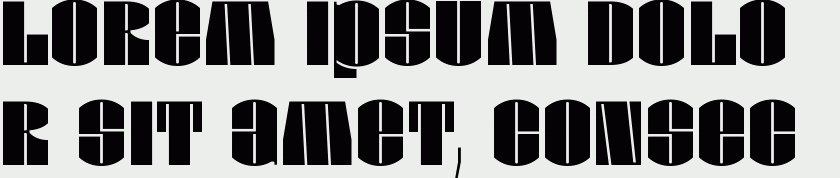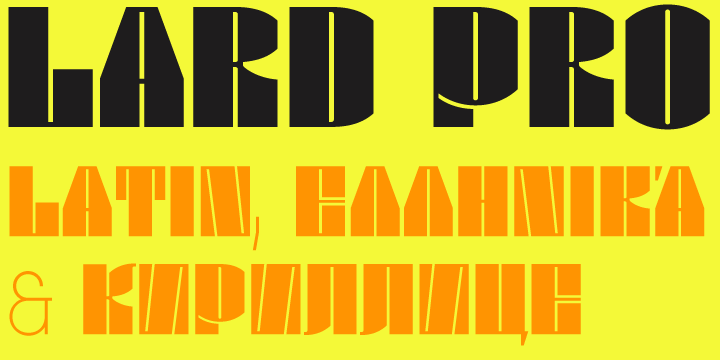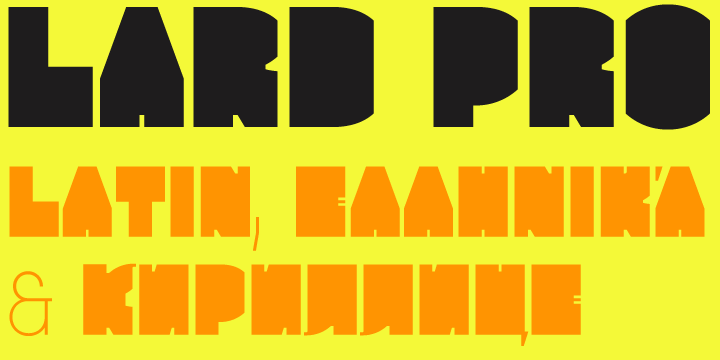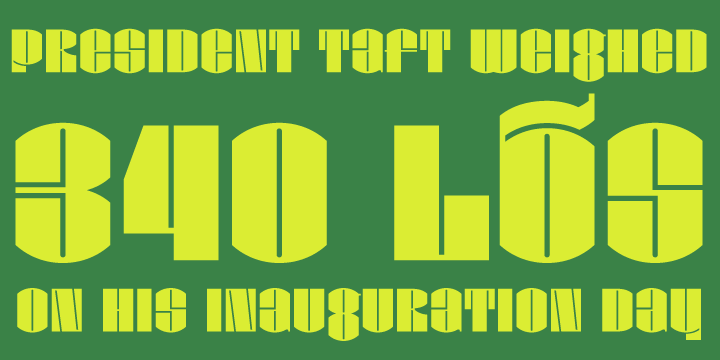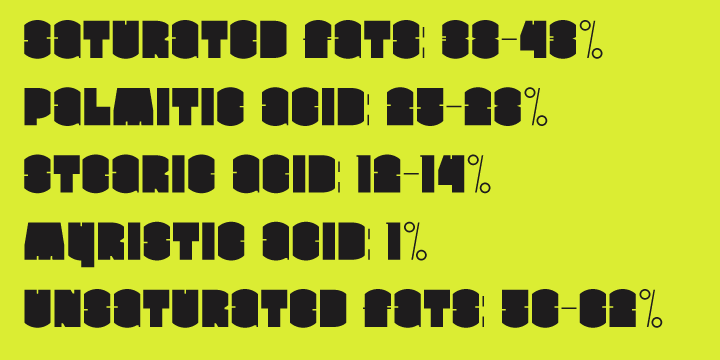
Lard Pro
Lard Pro Regular is an extreme contrasted extra black typeface designed for usage at larger sizes. Lard Pro Bold is an extra black typeface designed for usage at larger sizes. They contain extended Latin, Cyrillic and Greek alphabets to support a very wide range of languages.
Designer: Michael Wallner